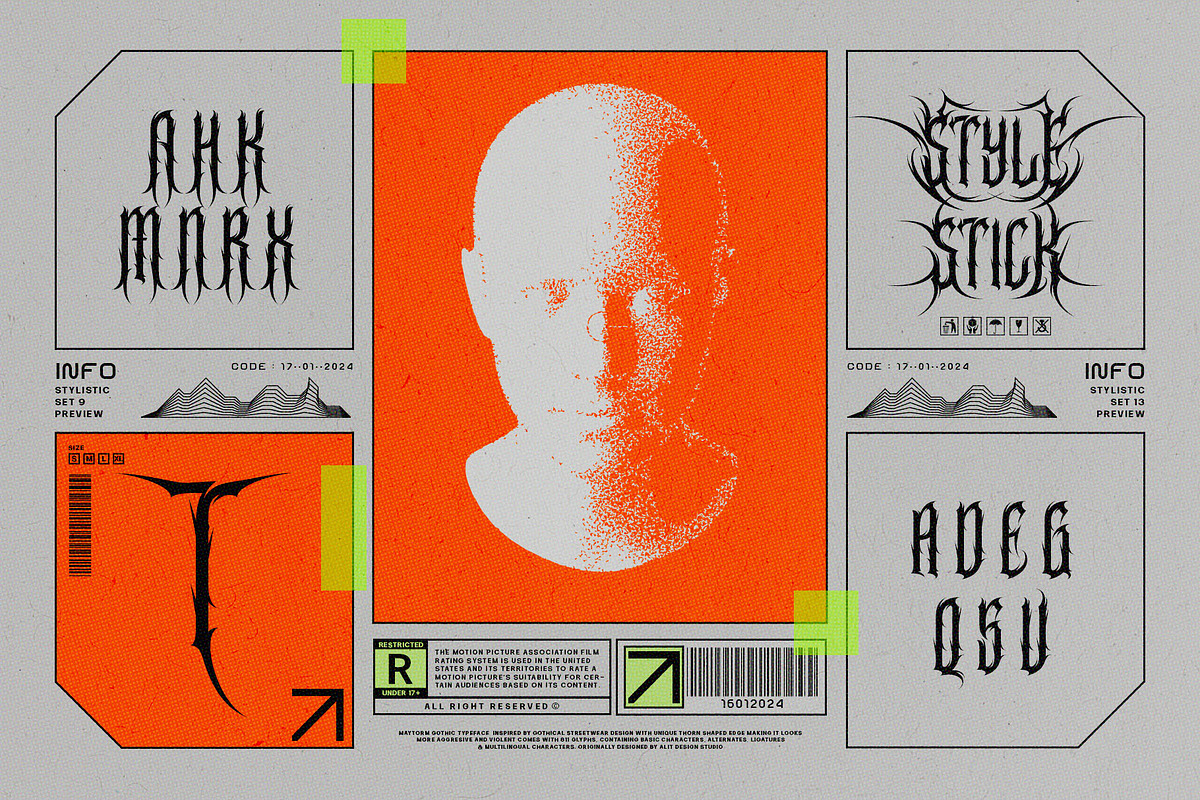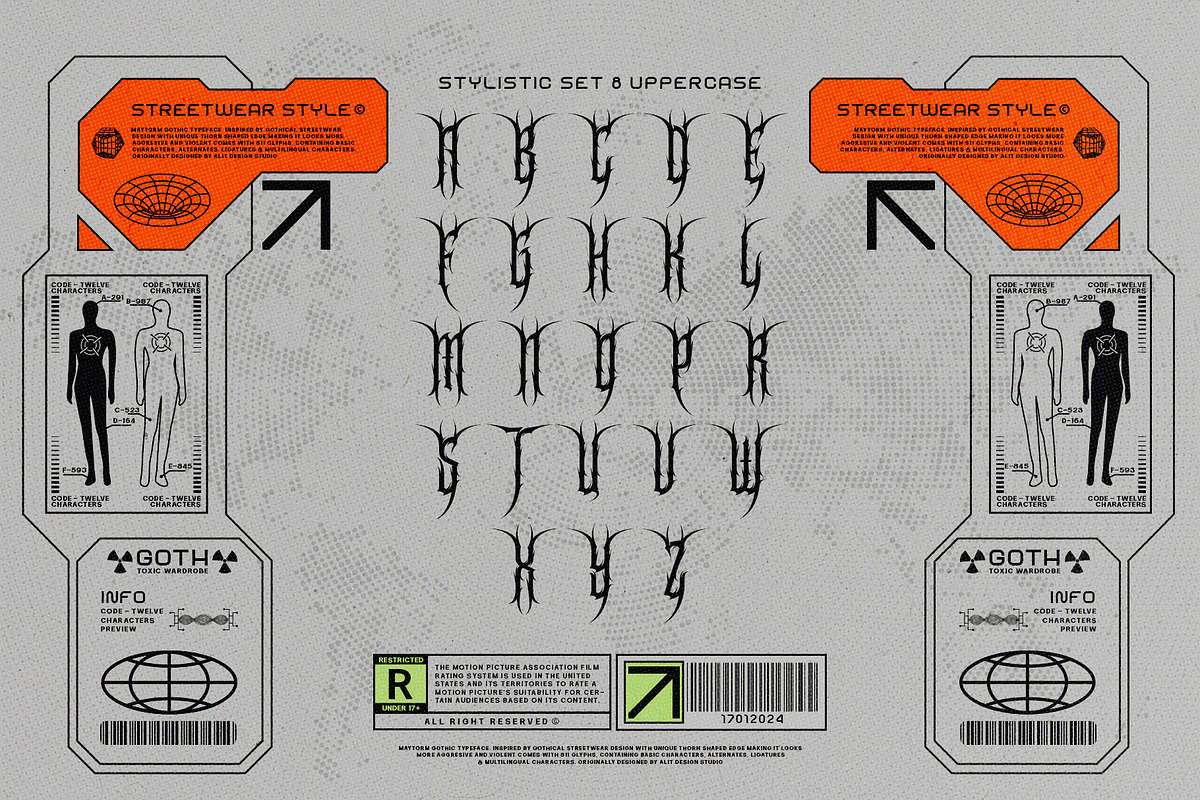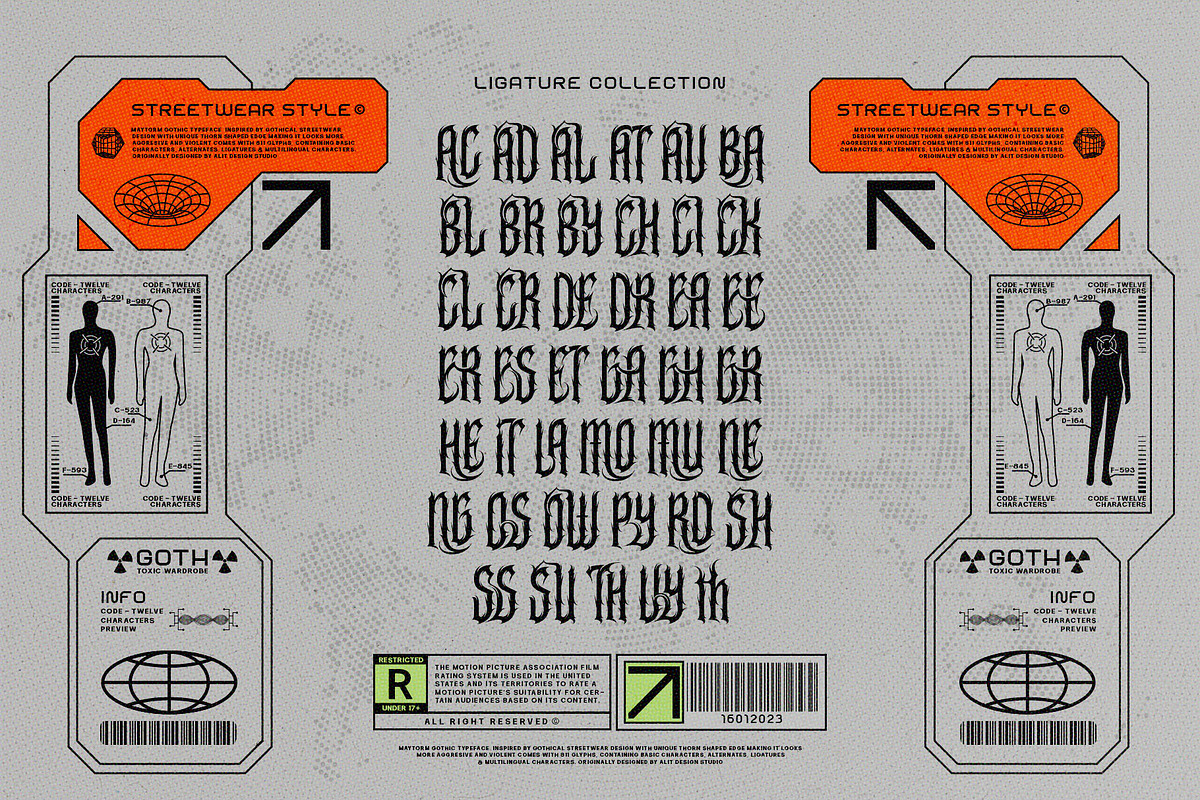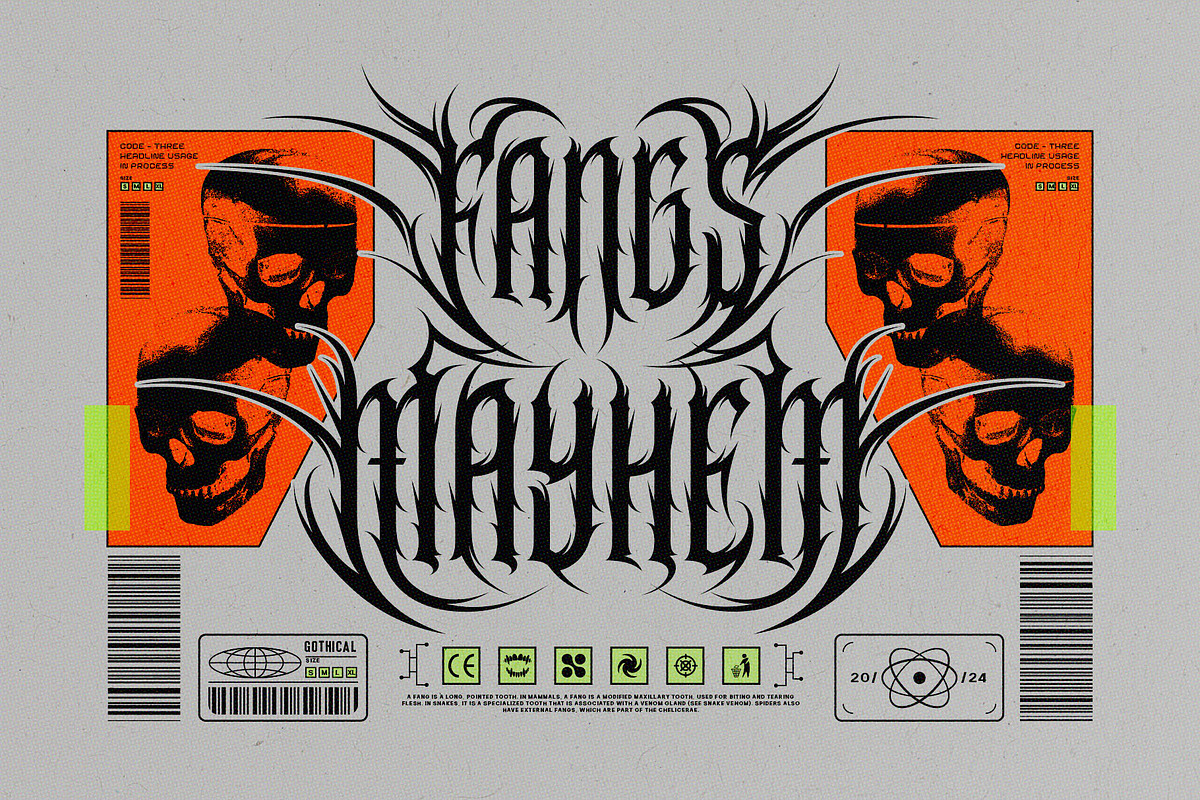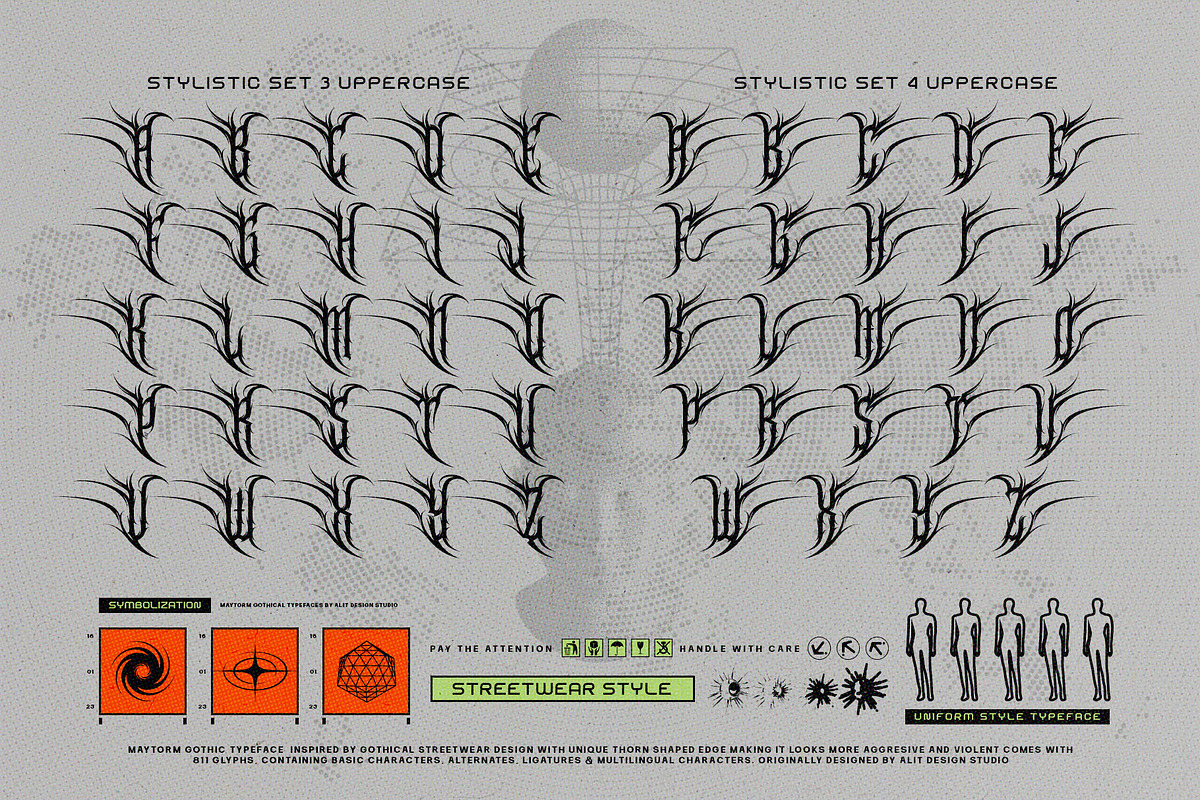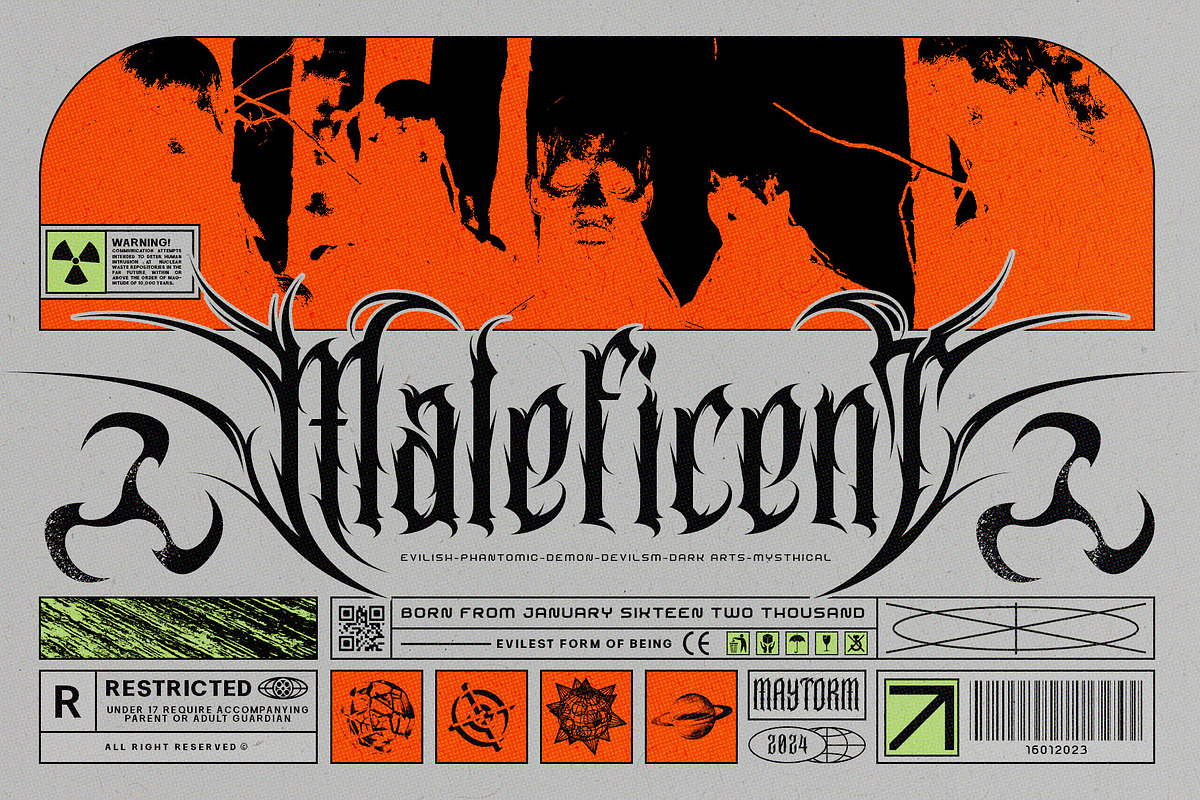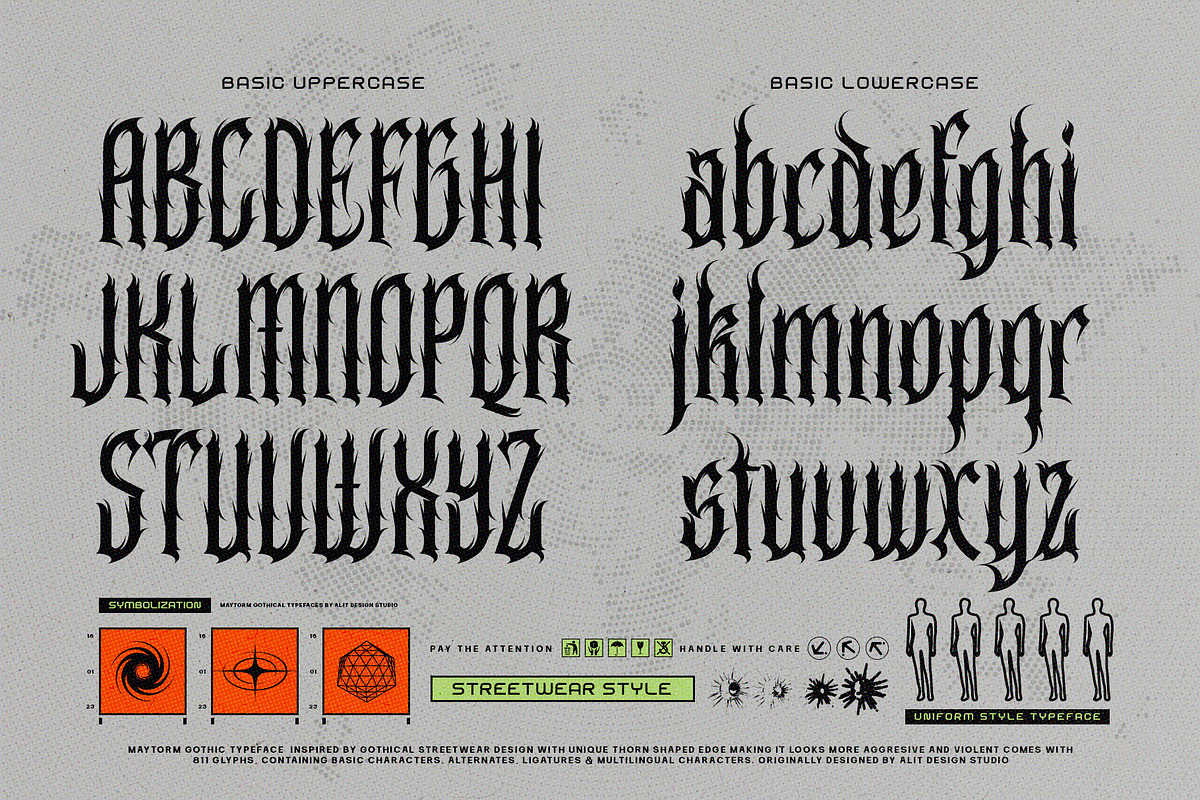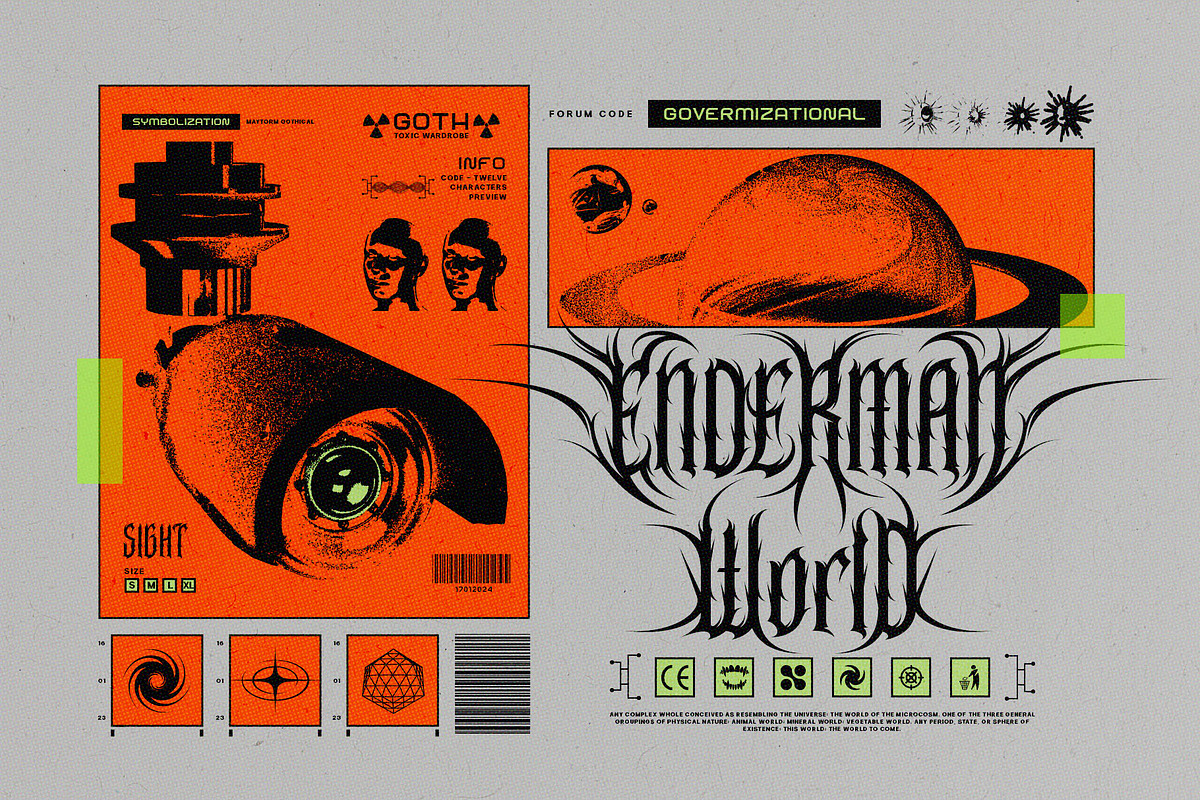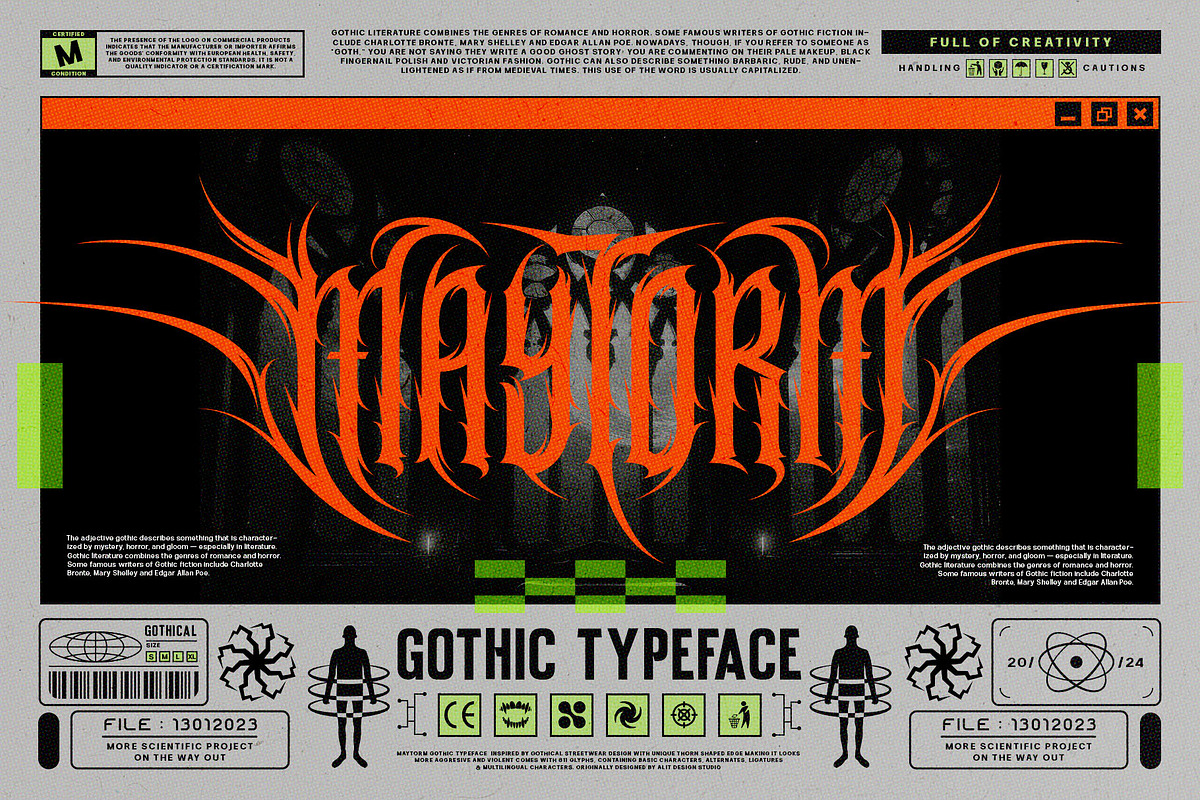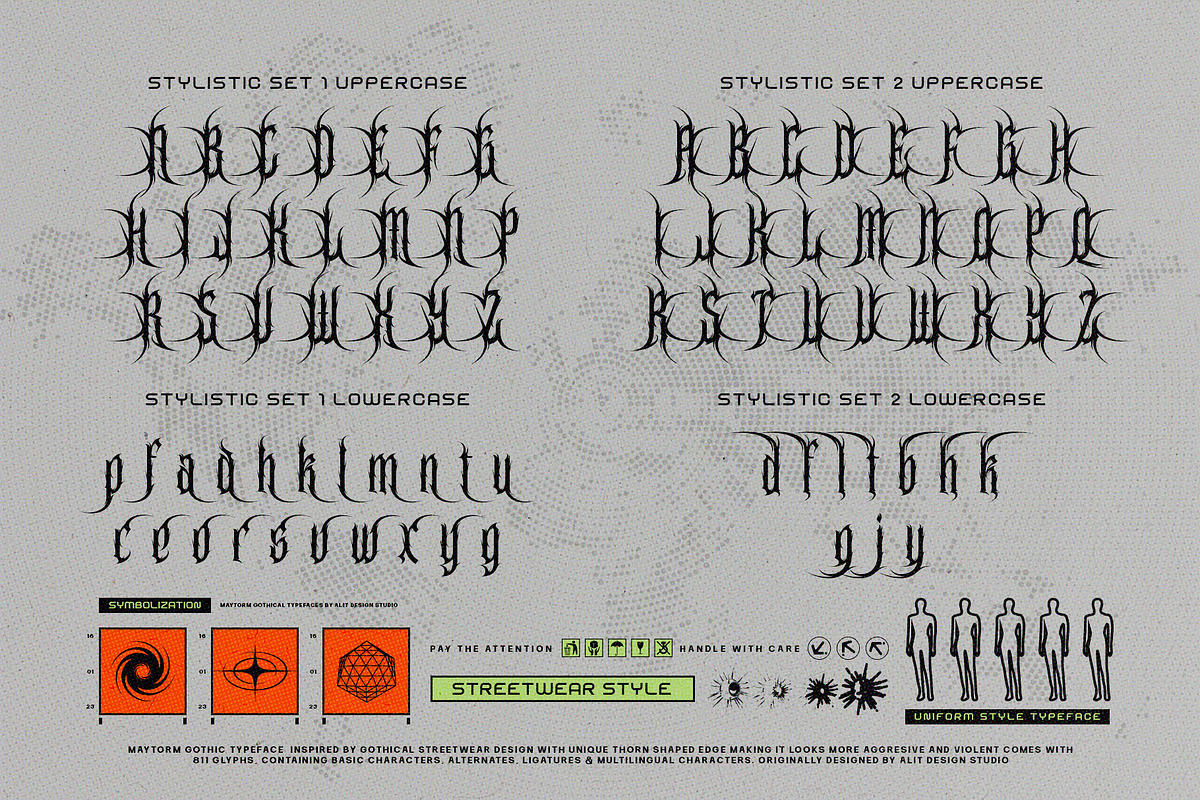
Maytorm Modern Metal Typeface
Introducing Maytron – Unleash the Raw Power of Metal Brutalism in Typography!
Unleash the relentless spirit of metal with Maytron, a cutting-edge font designed to embody the raw intensity of brutalism in the world of metal music. Maytron fuses the strength of industrial aesthetics with a modern concept of metal spikes, creating a typeface that resonates with the ferocity and energy of the metal genre.
Metal Brutalism Concept: Maytron is a typographic powerhouse that captures the essence of metal brutalism. Its angular design and metal spike elements give your words an edgy, powerful appearance that perfectly complements the intensity of metal music.
811 Alternative Characters: Dive into the versatility of Maytron with a staggering 811 alternative characters. Explore a myriad of options to truly customize your text and make it uniquely yours. Maytron ensures that your designs stand out with its extensive character set.
Ligatures and Swashes: Elevate your typography game with carefully crafted ligatures and swashes that add a touch of sophistication to your compositions. Maytron doesn’t just communicate power; it does so with style.
Multilingual PUA Unicode Support: Maytron goes beyond linguistic barriers with its multilingual support and PUA Unicode compatibility. Express yourself in various languages and scripts, ensuring your message reaches a global audience.
Whether you're designing album covers, merchandise, or promotional materials for a metal band, Maytron is the font that will set your creations apart. Embrace the fierce aesthetic of metal brutalism and let Maytron be the voice that roars through your design projects. Unleash the mayhem, unleash Maytron!